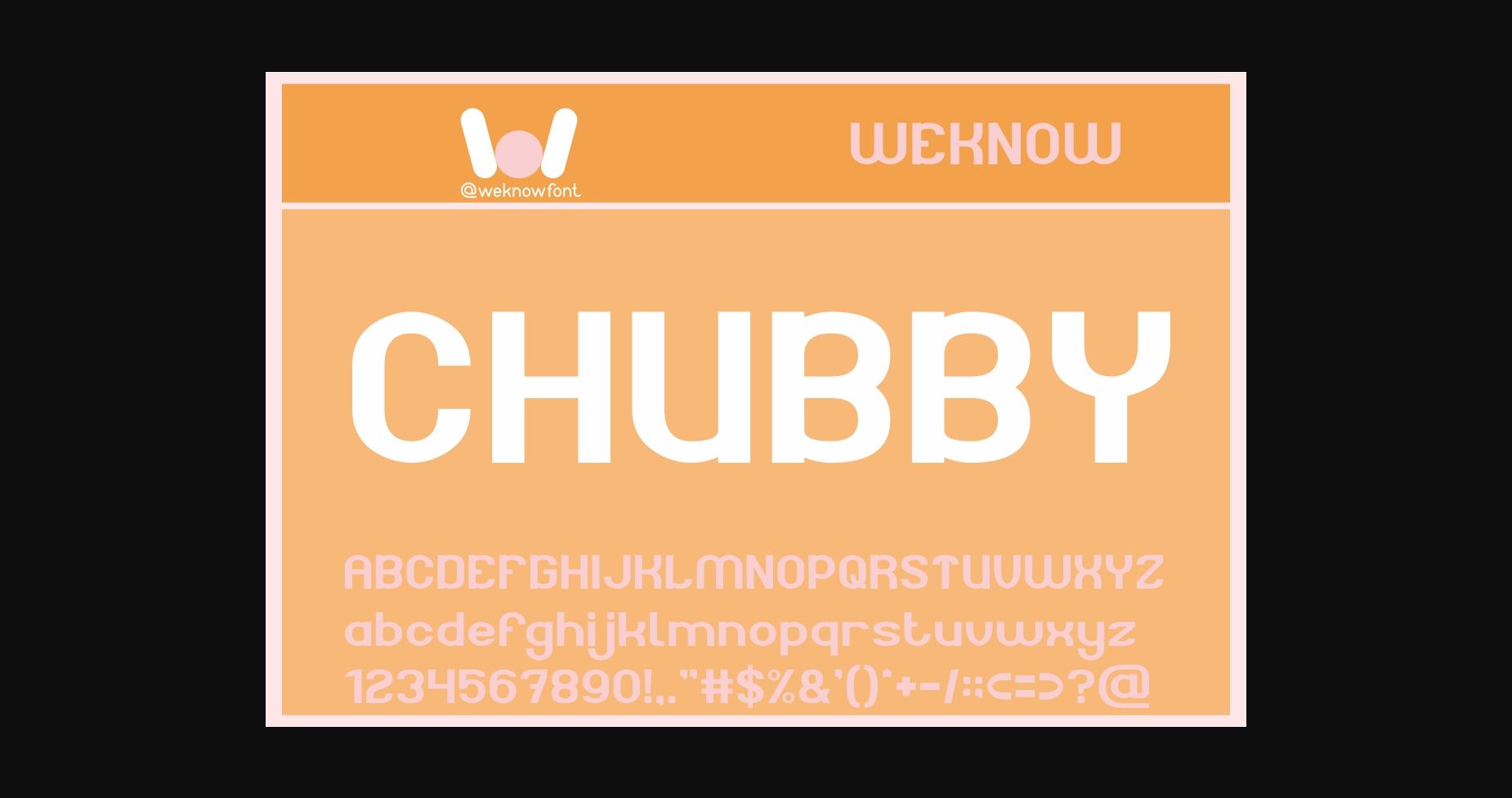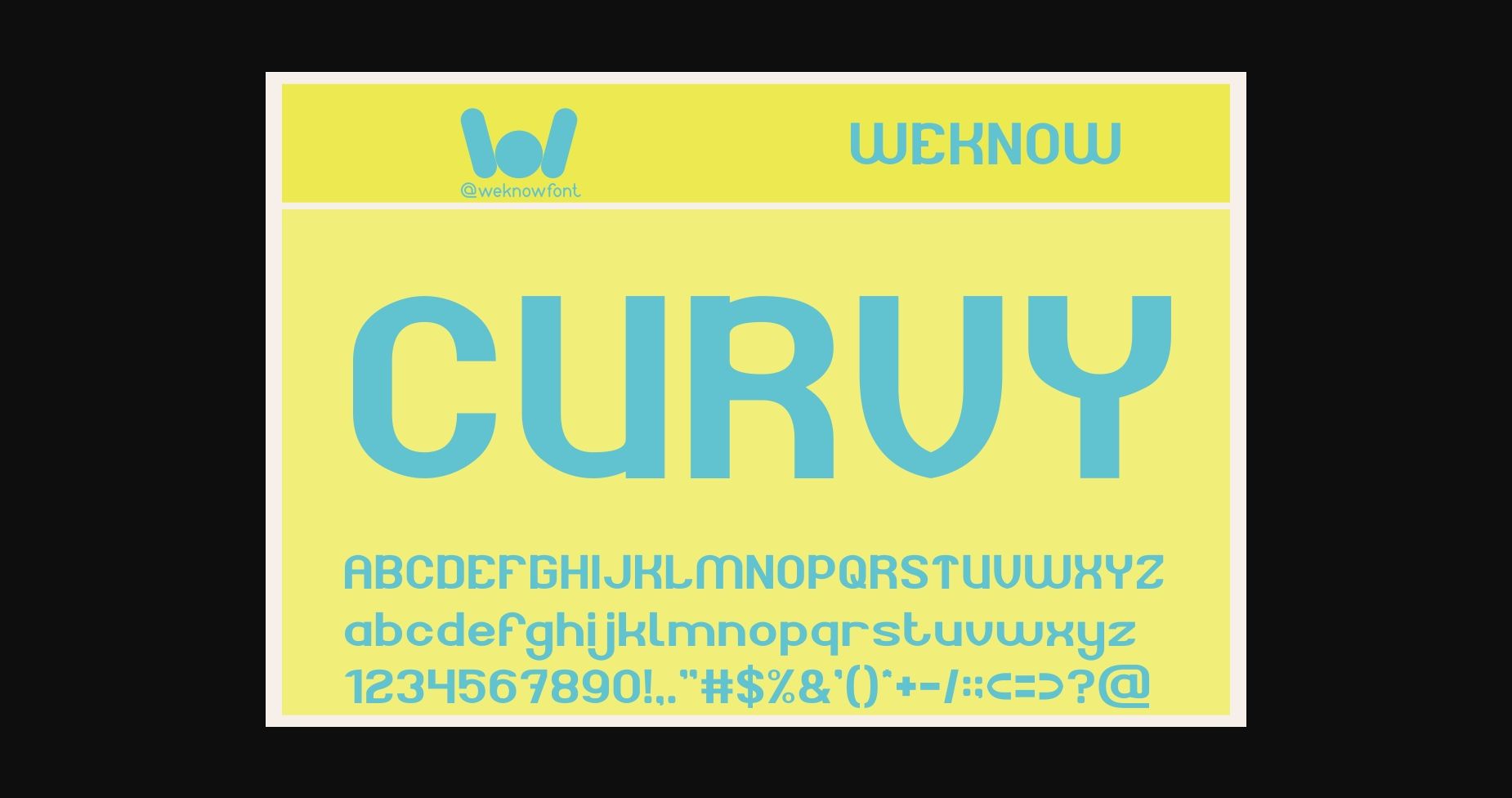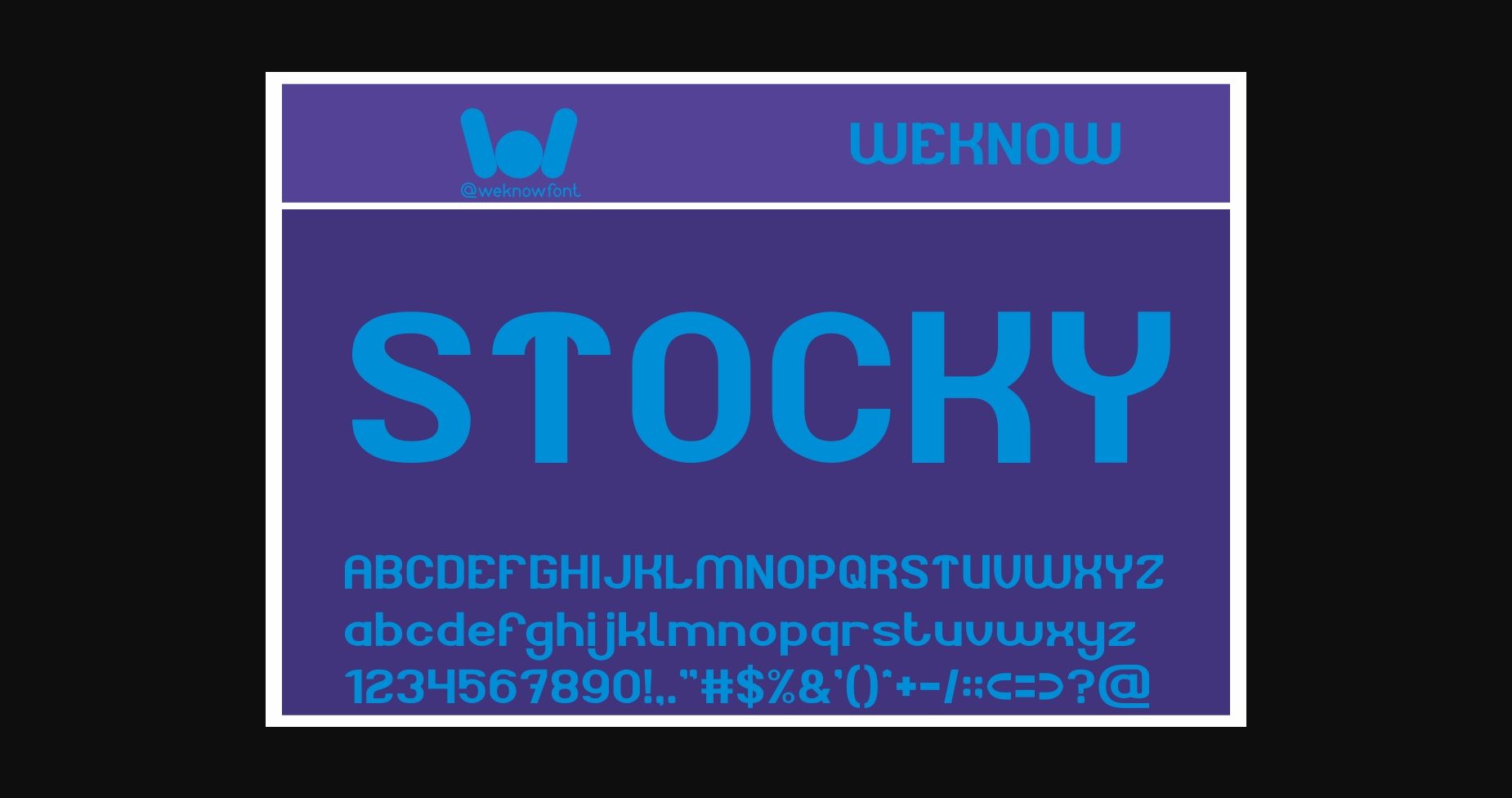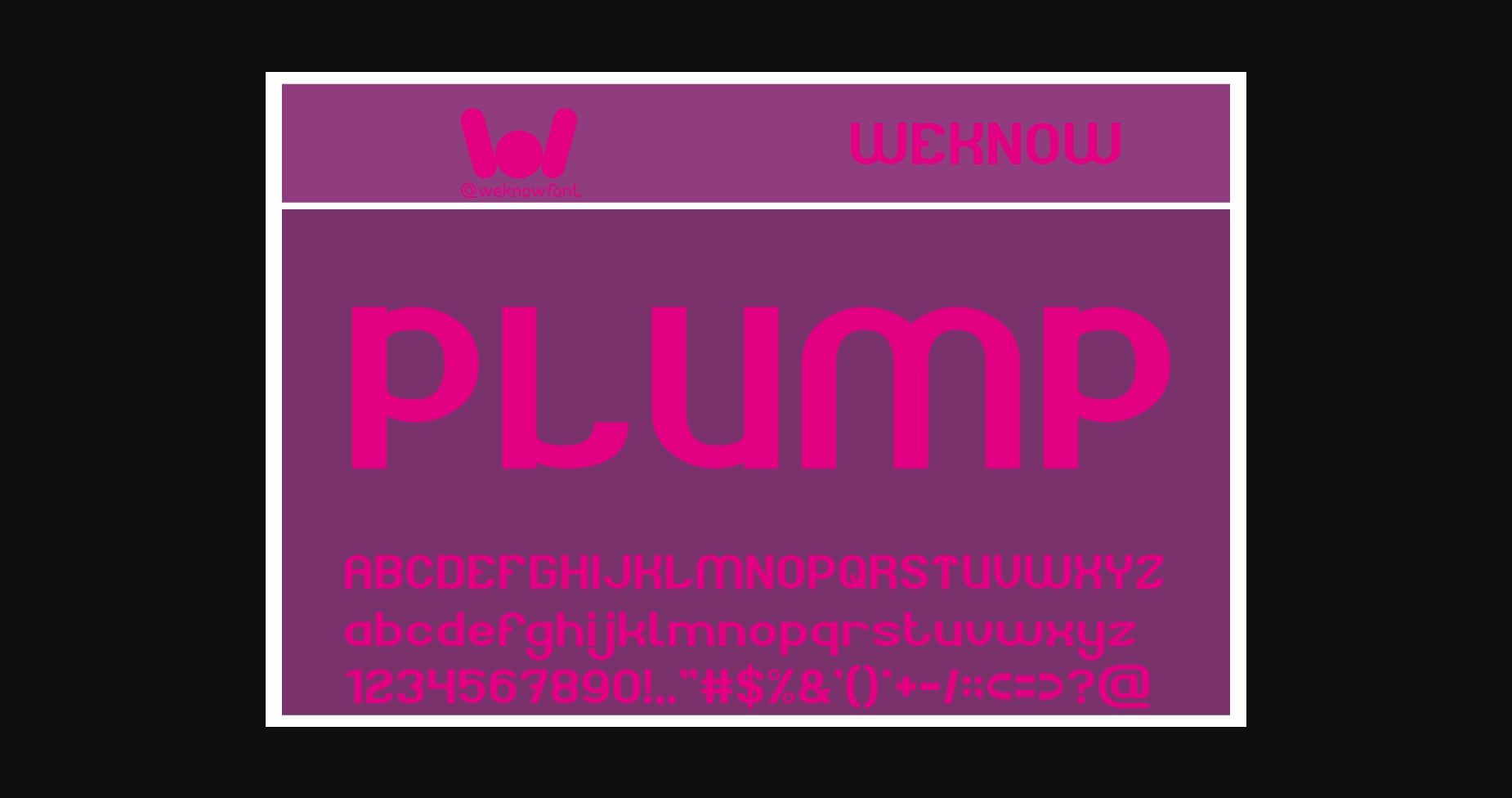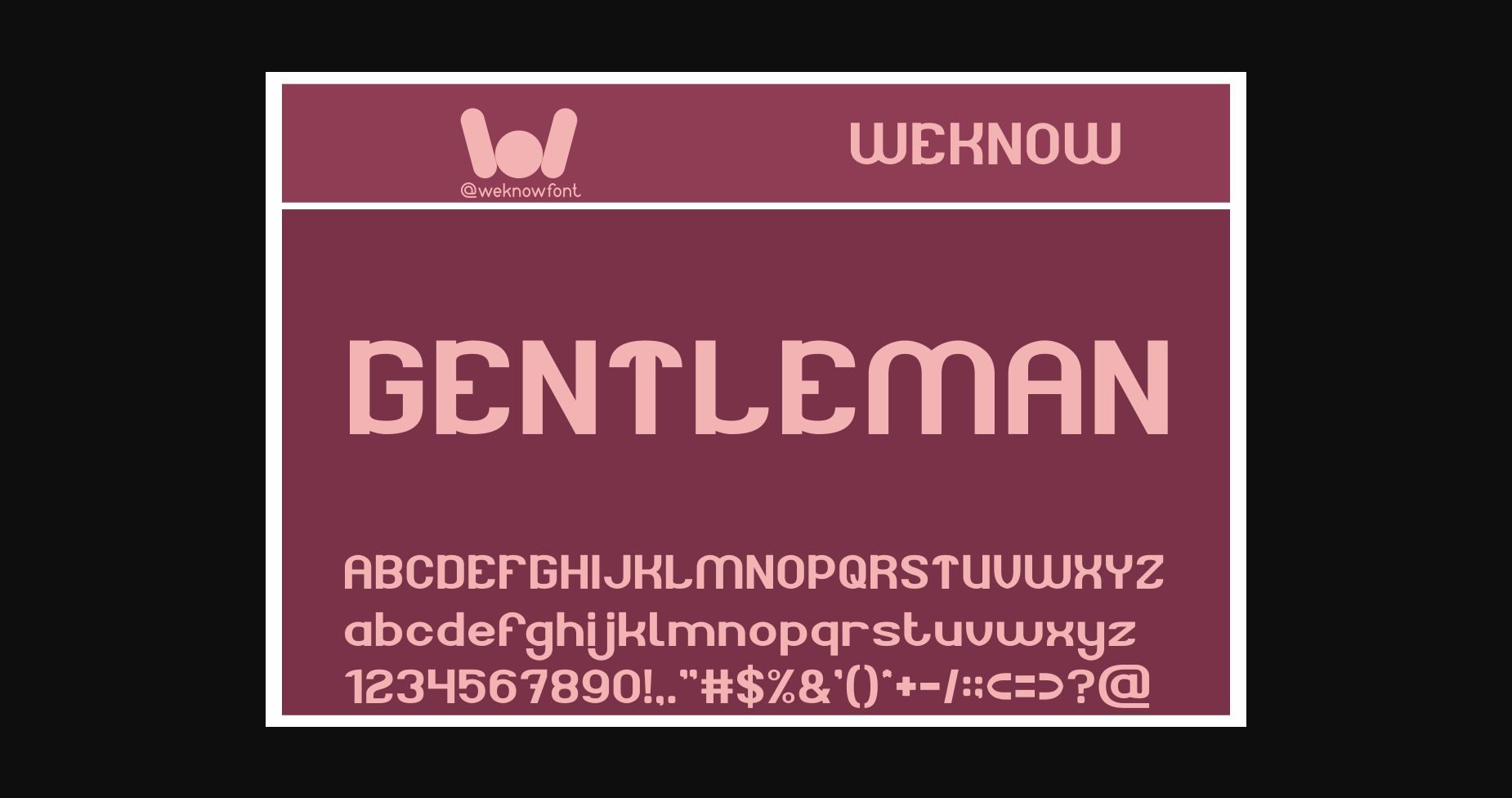
Chubby Font
About Chubby Font
Chubby is a basic sans serif various themes font, suit for logo, logotype, headline font, in corporate identity, brand identity, apparel industry, poster, music, movie, game, magazine, book, comic, cartoon, YouTube, Instagram, website, or any of your creative design project. It can easily be matched to an incredibly large set of projects, so add it to your creative ideas and notice how it makes them stand out!